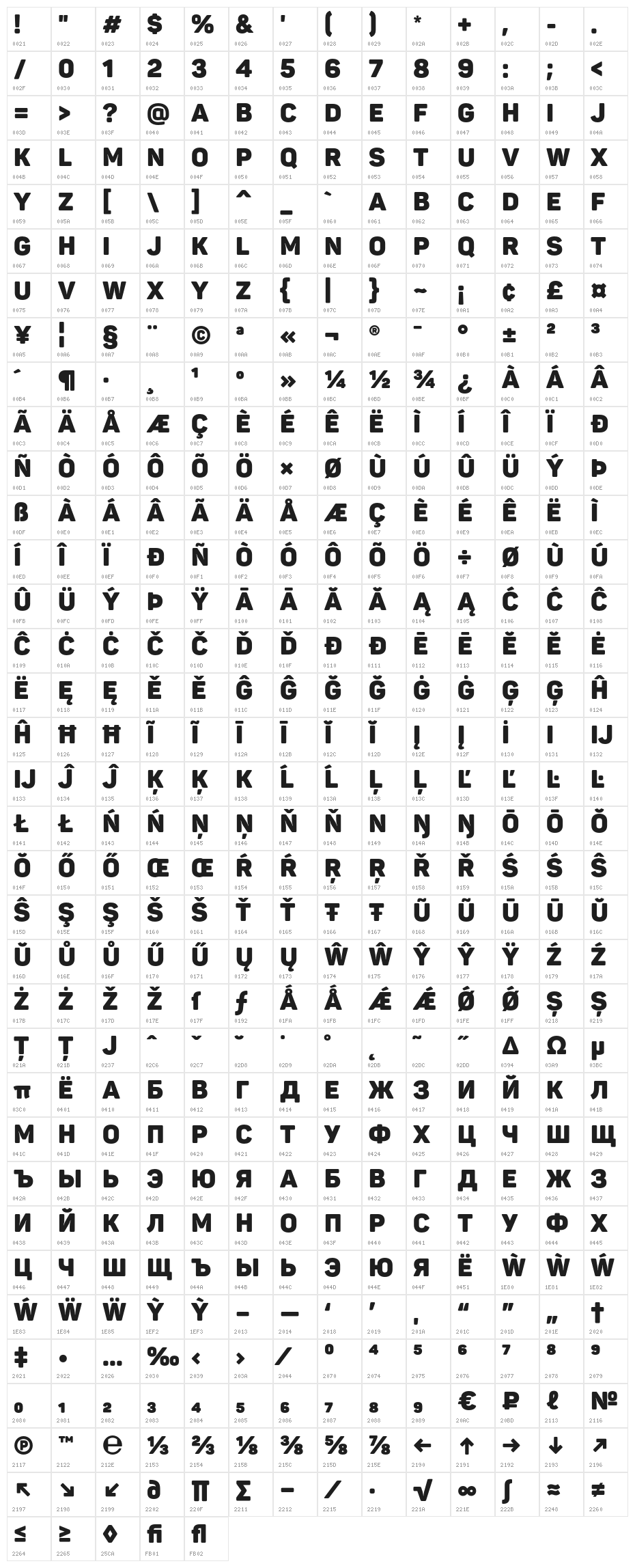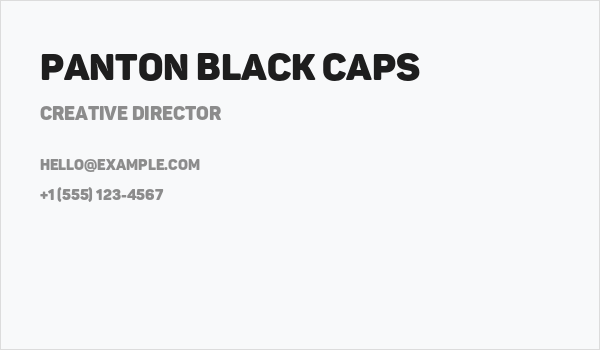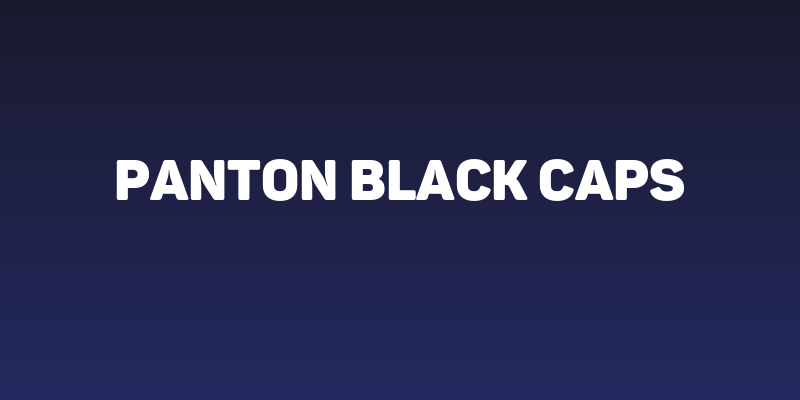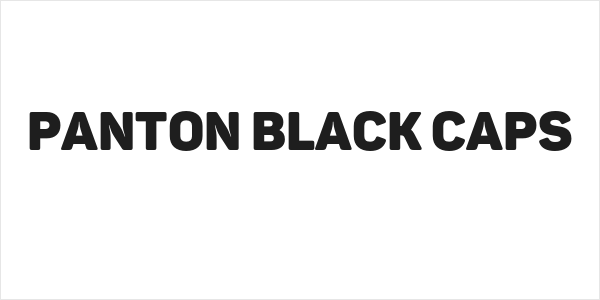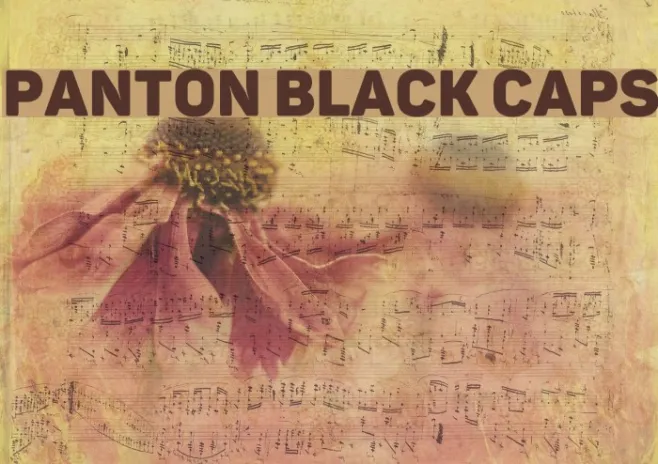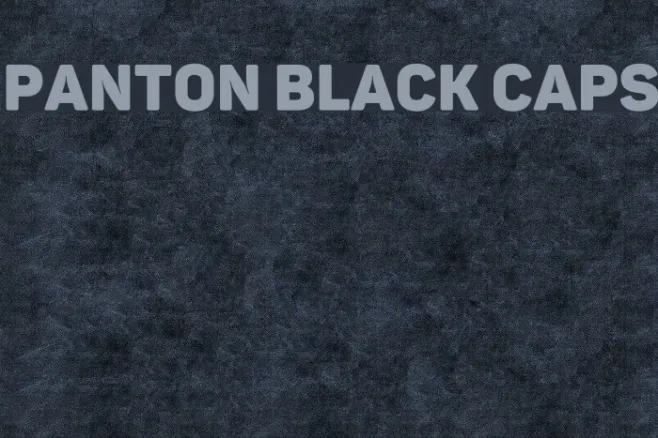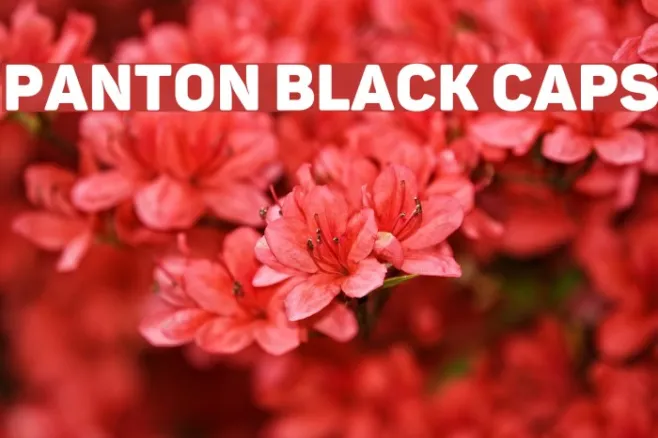
Panton Black Caps Font
Panton Black Caps Description
This font exhibits a bold and robust design, characterized by thick, uniform strokes that convey a strong presence. The letters are crafted with a modern sans-serif style, ensuring clarity and readability. The uppercase letters are consistent in height, providing a harmonious and balanced appearance. The numerals and special characters maintain the same boldness, ensuring they stand out effectively. This font's design is straightforward, making it suitable for various applications where impact and legibility are essential.